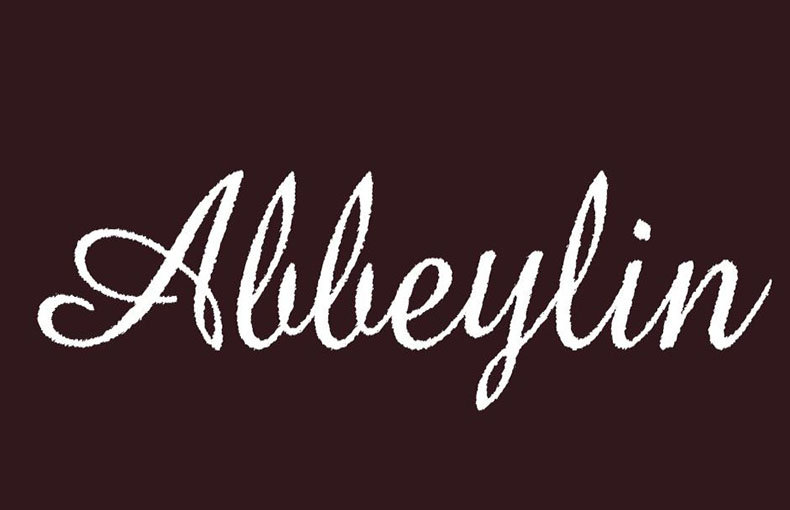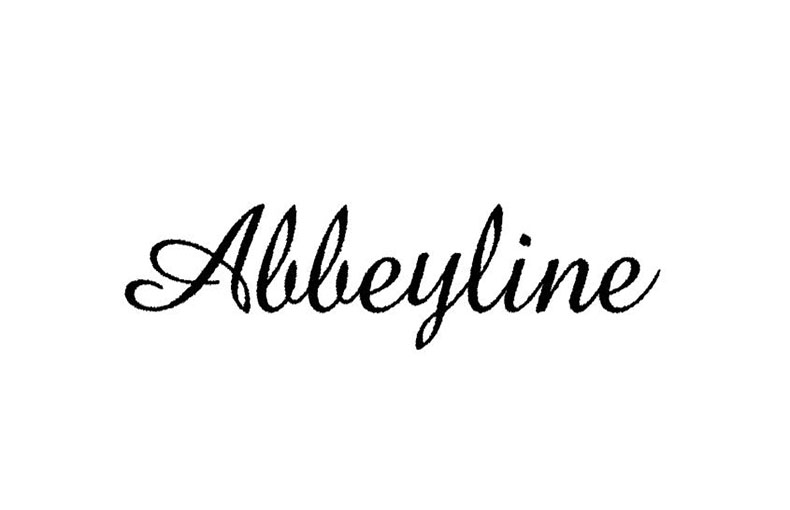
Abbey Line Font is a script calligraphy typeface that comes with a beautiful letter design. You can use it for greeting cards t-shirt designs, posters, social media posts, and more.
The font has a stylish and curved texture, giving it a handwritten feel. The designer added extra swashes on top of the letters to make the font even cooler.
The swash effect is commonly seen in capital letters, and in each lowercase letter, the designer adds a small swash to create connections with other letters.
It is versatile and easy to use, and it can be used to create a variety of beautiful and eye-catching designs.
It is ideal for usage in playing card designs, flyer designs, label designs, and titling designs. This font works well for reading textures, sophisticated text designs, and graphic card designs. For general report designs, resume designs, and article designs, this font is appropriate.
The font Abbeyline contains 105 glyphs and supports 34 different languages.
What is Abbеy Linе Font?
Abbеy Linе Font is a script-stylе typеfacе, known for its еlеgant and flowing cursivе appеarancе.
Whеrе can I usе Abbеy Linе Font?
You can use it for various dеsign projects, invitations, branding, and morе, to add a touch of sophistication.